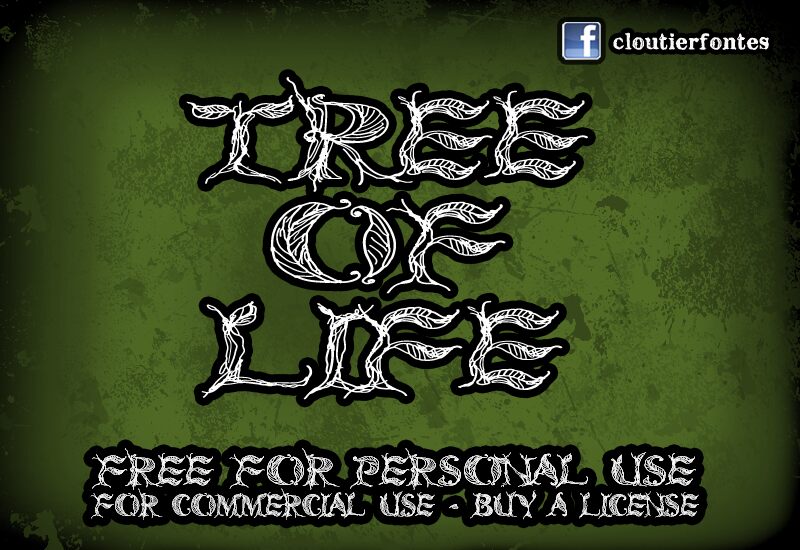
CF Tree of Life Wide from CloutierFontes is a free decorative display font drawn as a tangle of slender branches, curling vines, and striped leaves. Its wide letters spread sideways like clipped botanical silhouettes.
For audiences drawn to gothic fantasy and dark fairy-tale imagery, the thorny organic forms suit book covers and theatrical posters. They can also turn music merchandise or seasonal event graphics into something closer to an illustrated emblem than ordinary lettering. The repeating leaves and rootlike strokes connect directly with woodland drawings, storybook creatures, and decorative borders.
CF Tree of Life Wide is a font by CloutierFontes, designed by Steve Cloutier in 2013.